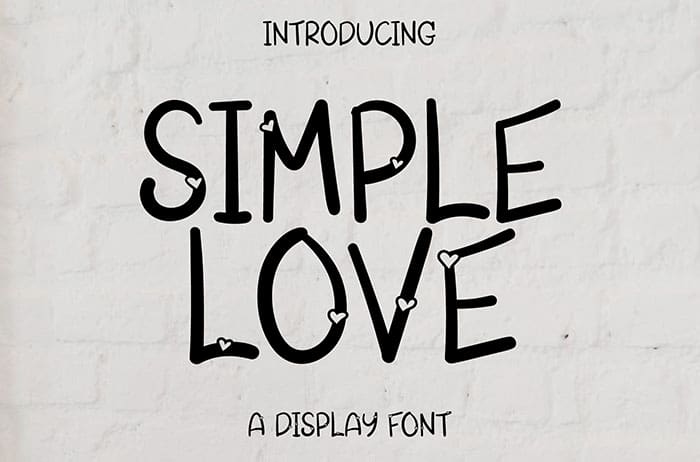
Simple Love Display Font
Simple Love is a cute and casual Display Font with an incredibly friendly feel. Whether you’re looking for fonts for Instagram or calligraphy scripts for DIY projects, this font will turn any creative idea into a true piece of art. Thanks to ST STUDIO ARTS for sharing this font! Take a look at this portfolio for more of his stunning fonts.